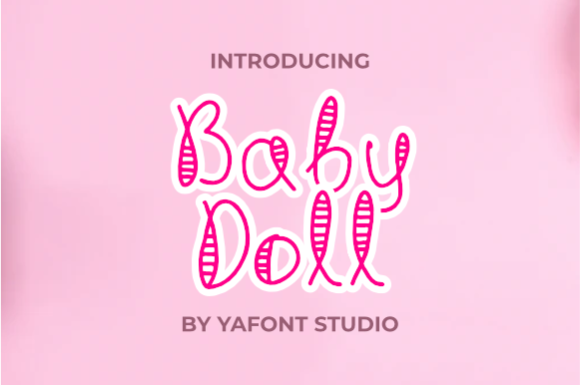
Baby Doll Font
Baby Doll is a sweet and friendly handwritten font. Its natural and unique style makes it incredibly fitting to a large pool of designs.